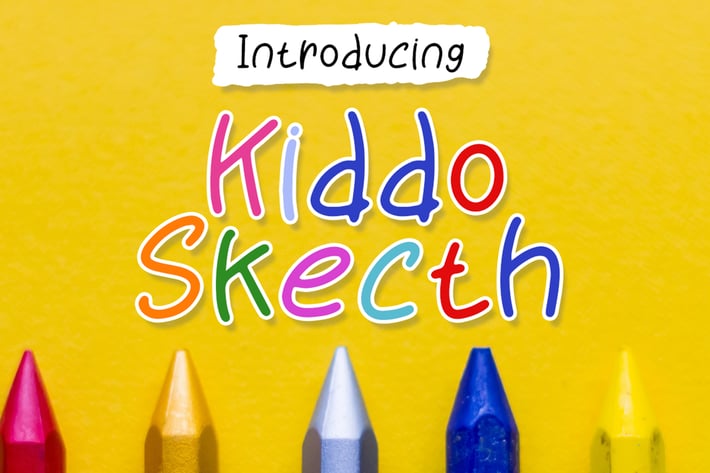
Kiddo Sketch - Playful Font
Kiddo Skecth is handwritten children font, it's really cute, funny and make a warm atmosphere for child.
Kiddo Skecth font suitable for t-shirt, children product, typography quotes, children book, and many more.